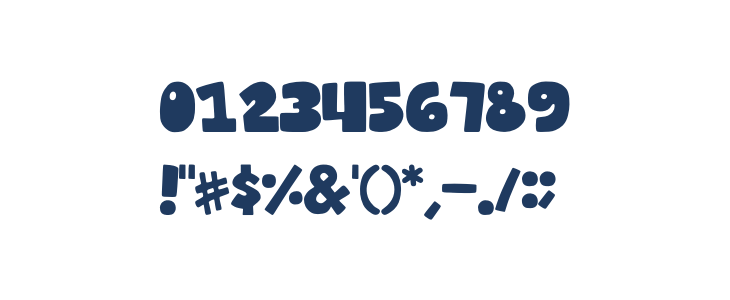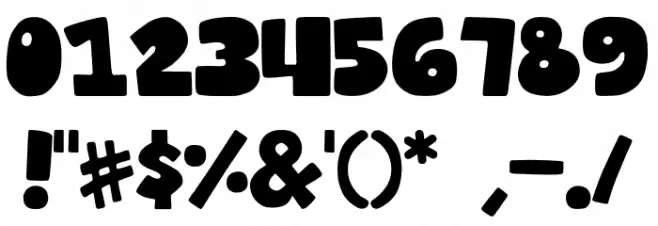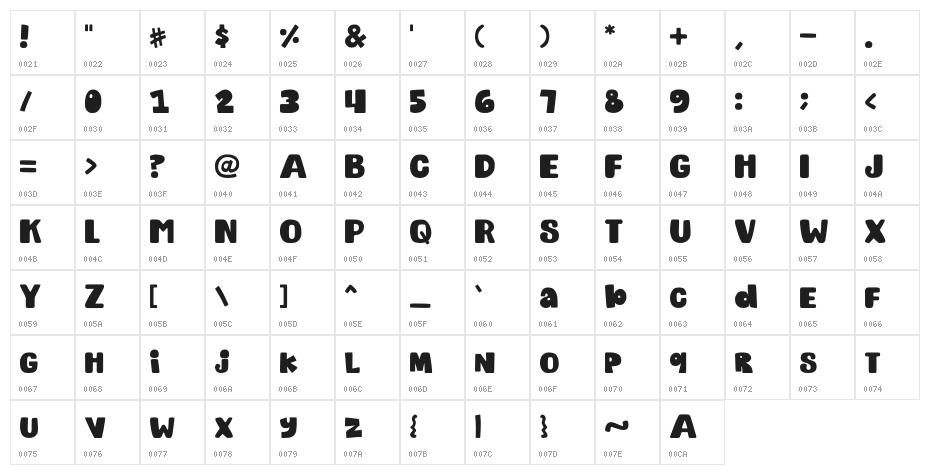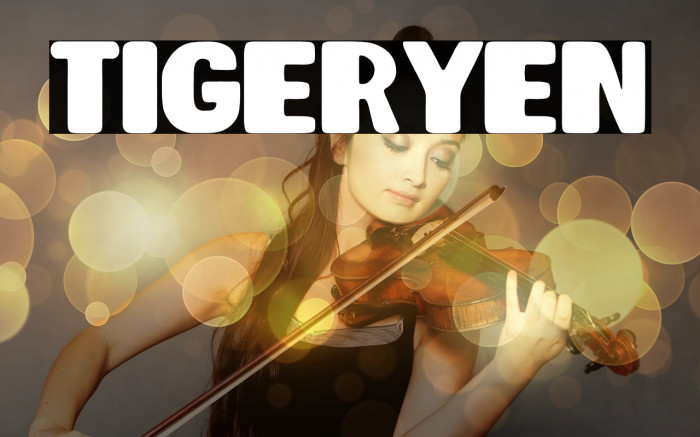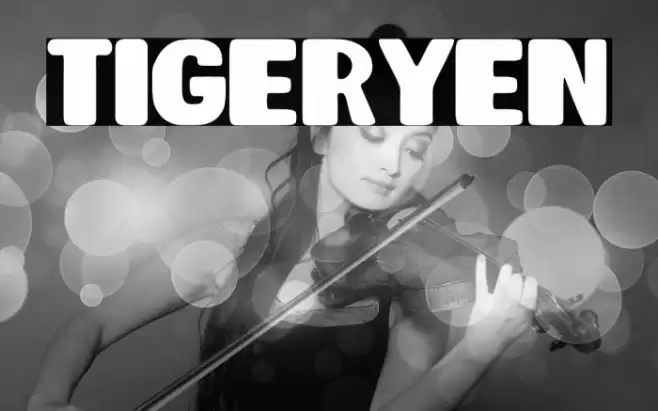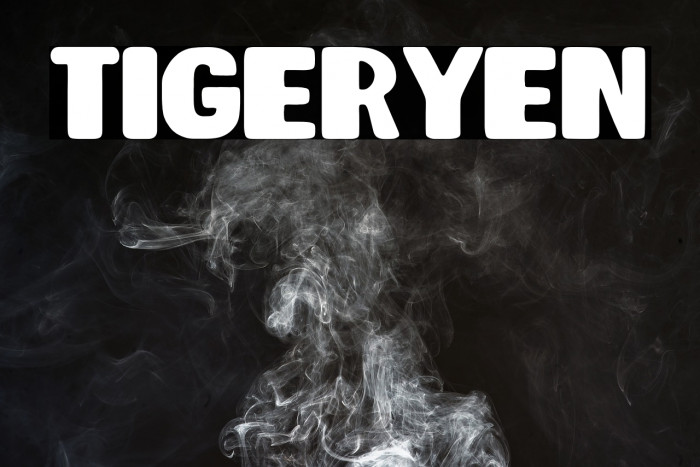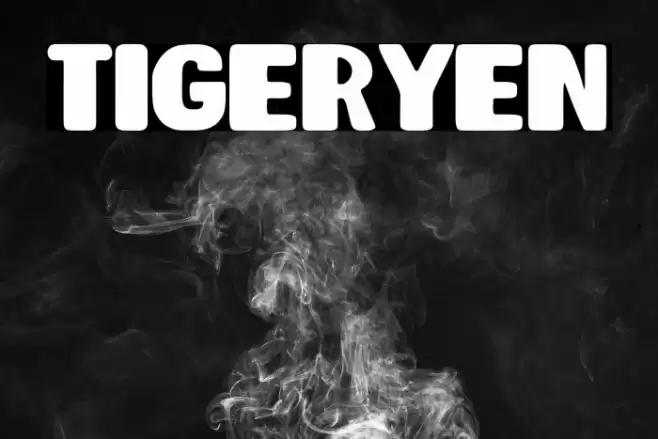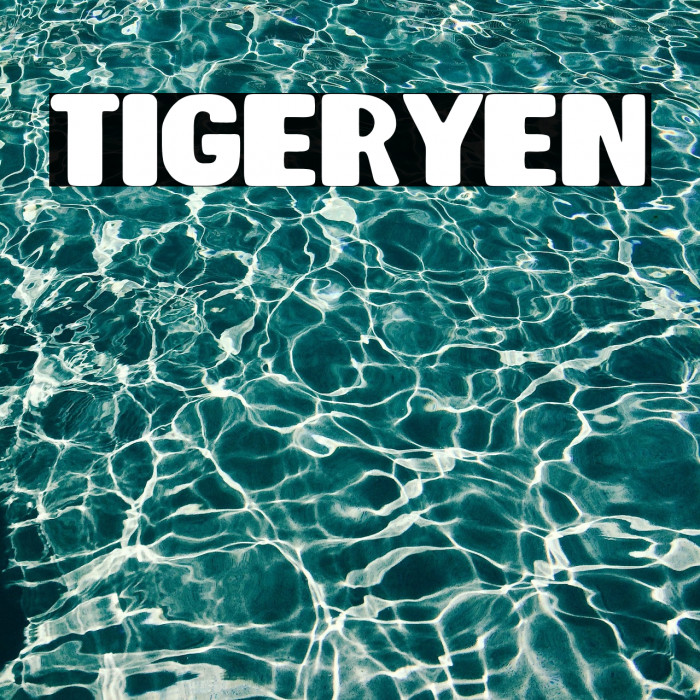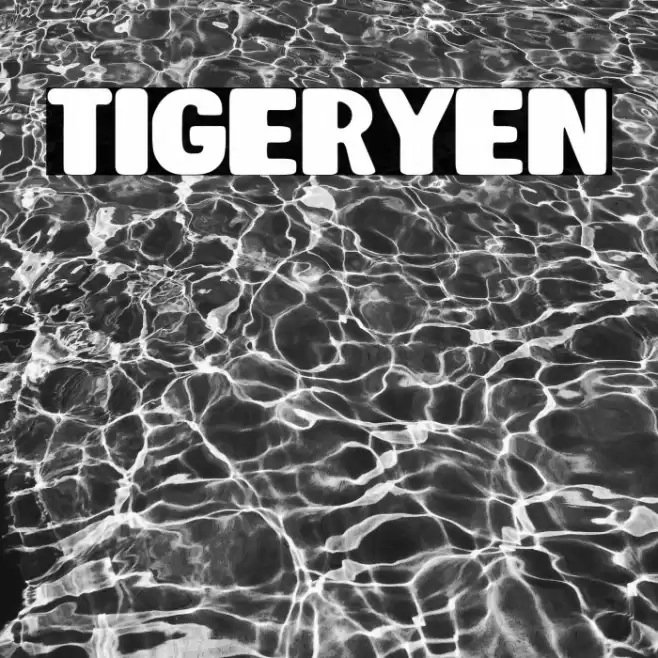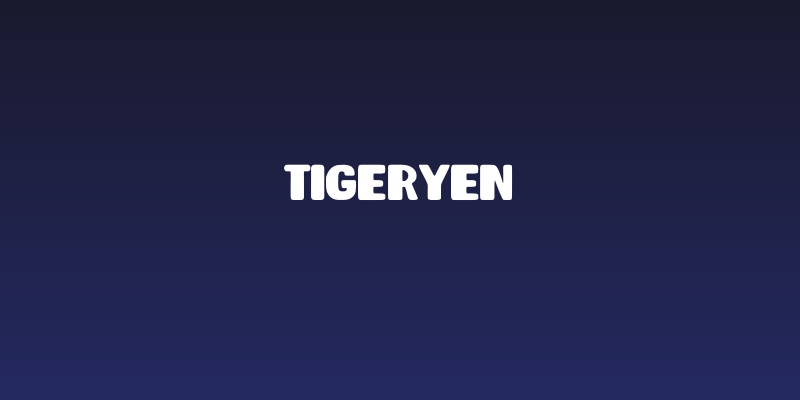
TIGERYEN Font
TIGERYEN Description
This font features bold, rounded characters with a playful and chunky appearance. The letters are uniformly thick, giving them a strong presence on the page. The rounded edges and slightly irregular shapes contribute to a whimsical and friendly feel, making it ideal for informal and fun designs. The numbers and special characters maintain the same boldness and rounded style, ensuring consistency across all elements. This font is highly legible, even at smaller sizes, due to its clear and distinct letterforms.
| Proposed Projects | Perfect for children's books, playful branding, posters, and any design needing a fun and approachable touch. |